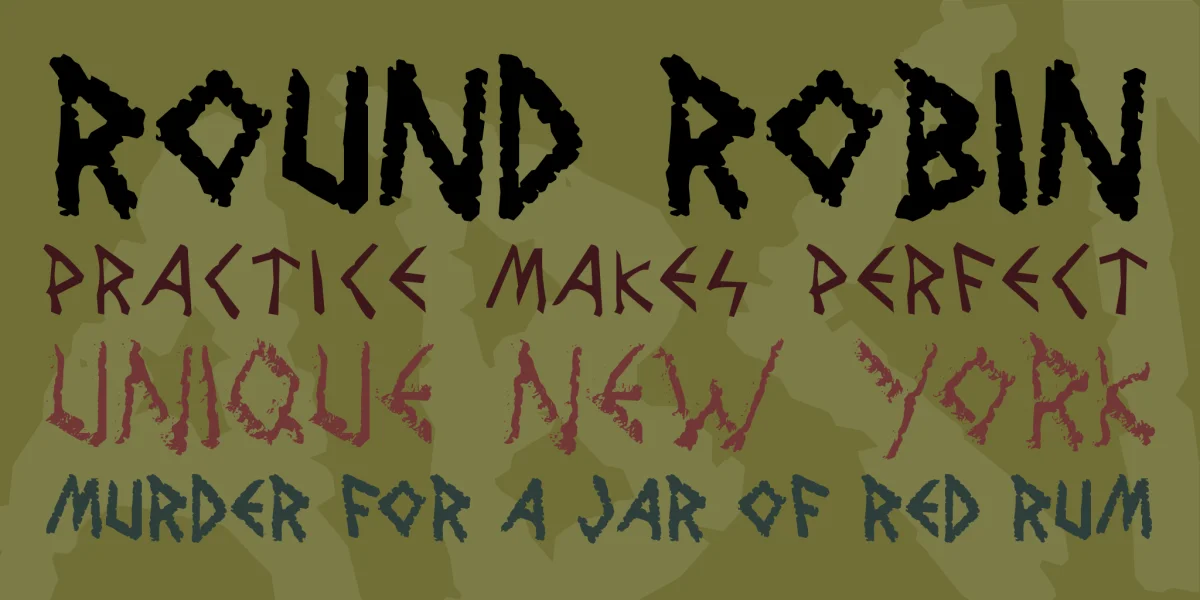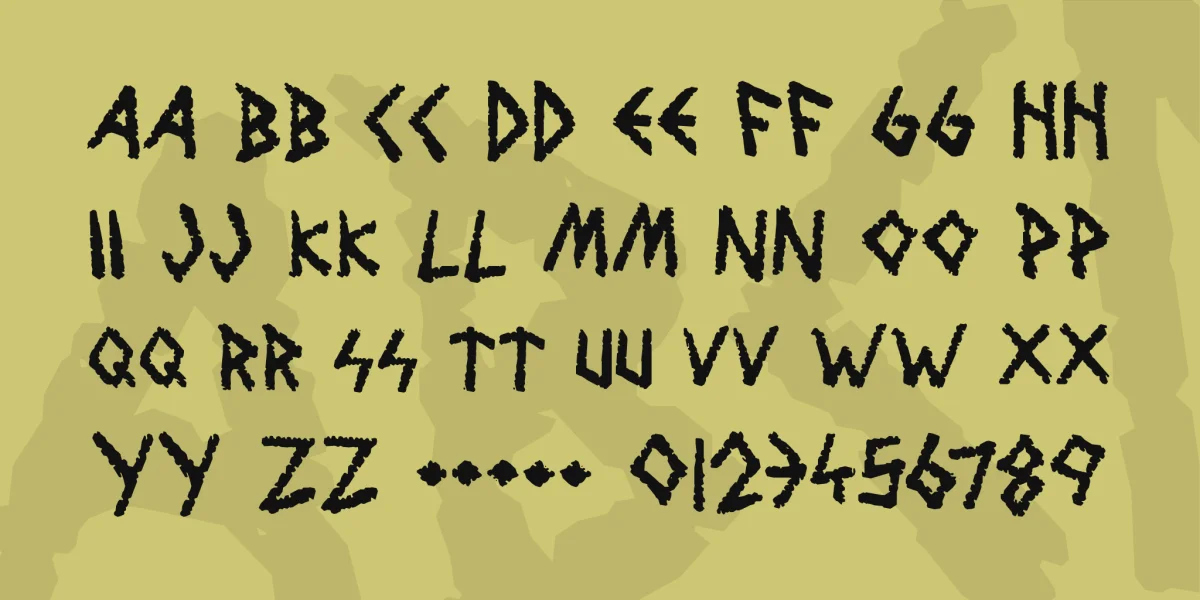
This is a simple fantasy font based on a player handout I created for a fantasy campaign in my teenage years. There was a cryptic message - "Wolves and Ravens Devour the Unwary" - carved into the side of a wooden footbridge, as an omen of things to come. The handwriting was meant to represent a quasi-runic style of Roman letters, of the sort that might be crudely carved with a dagger into the soft wood of the bridge rail.